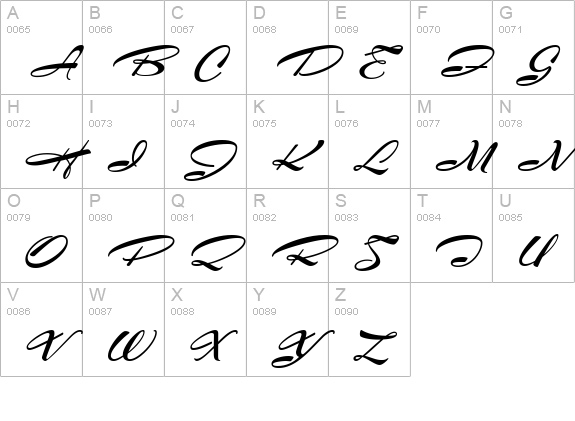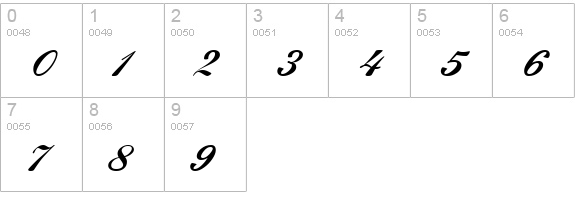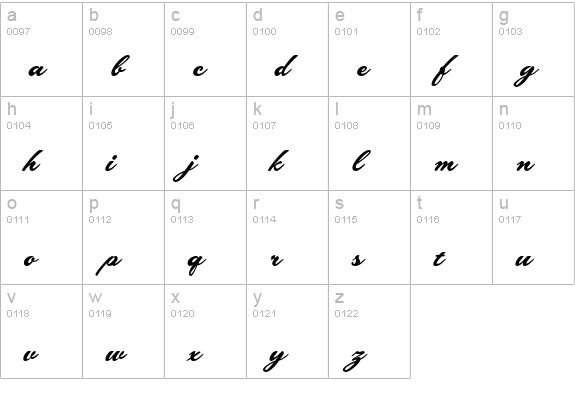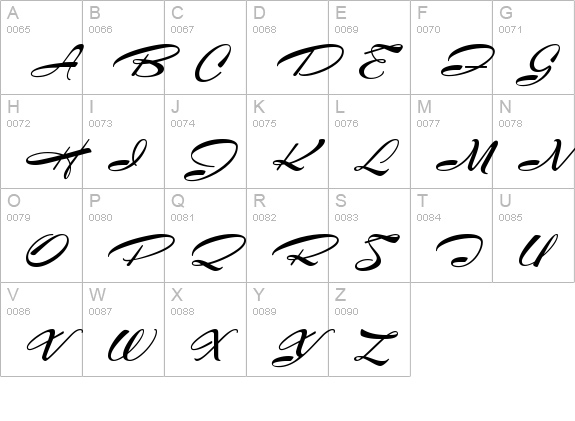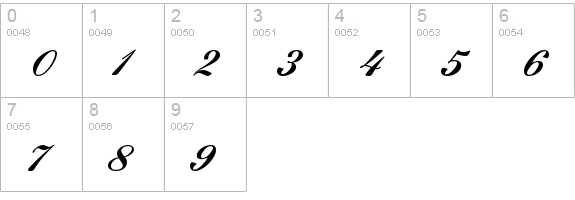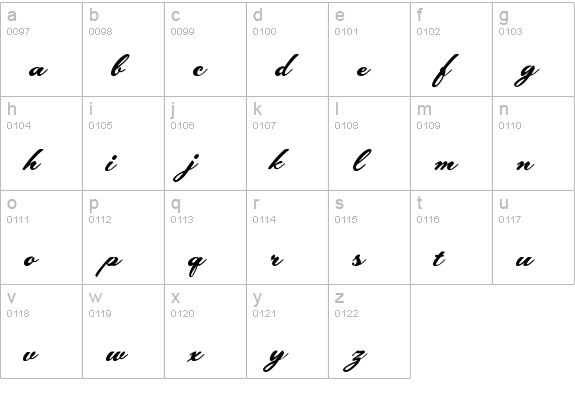
LuxuryRoyaleJF Font Details
LuxuryRoyaleJF font exudes elegance and sophistication with its intricate design and luxurious aesthetic. Featuring exquisite detailing and stylish flourishes, this font is perfect for adding a touch of luxury to your projects. Whether you're designing invitations, branding materials, or other creative work, LuxuryRoyaleJF font will elevate your designs to the next level. The best part? LuxuryRoyaleJF font is completely free to download at FontsMarket.com, allowing you to access this premium font without any cost. Don't miss out on the opportunity to enhance your projects with the timeless beauty of LuxuryRoyaleJF font. Download it today and add a touch of luxury to your designs.